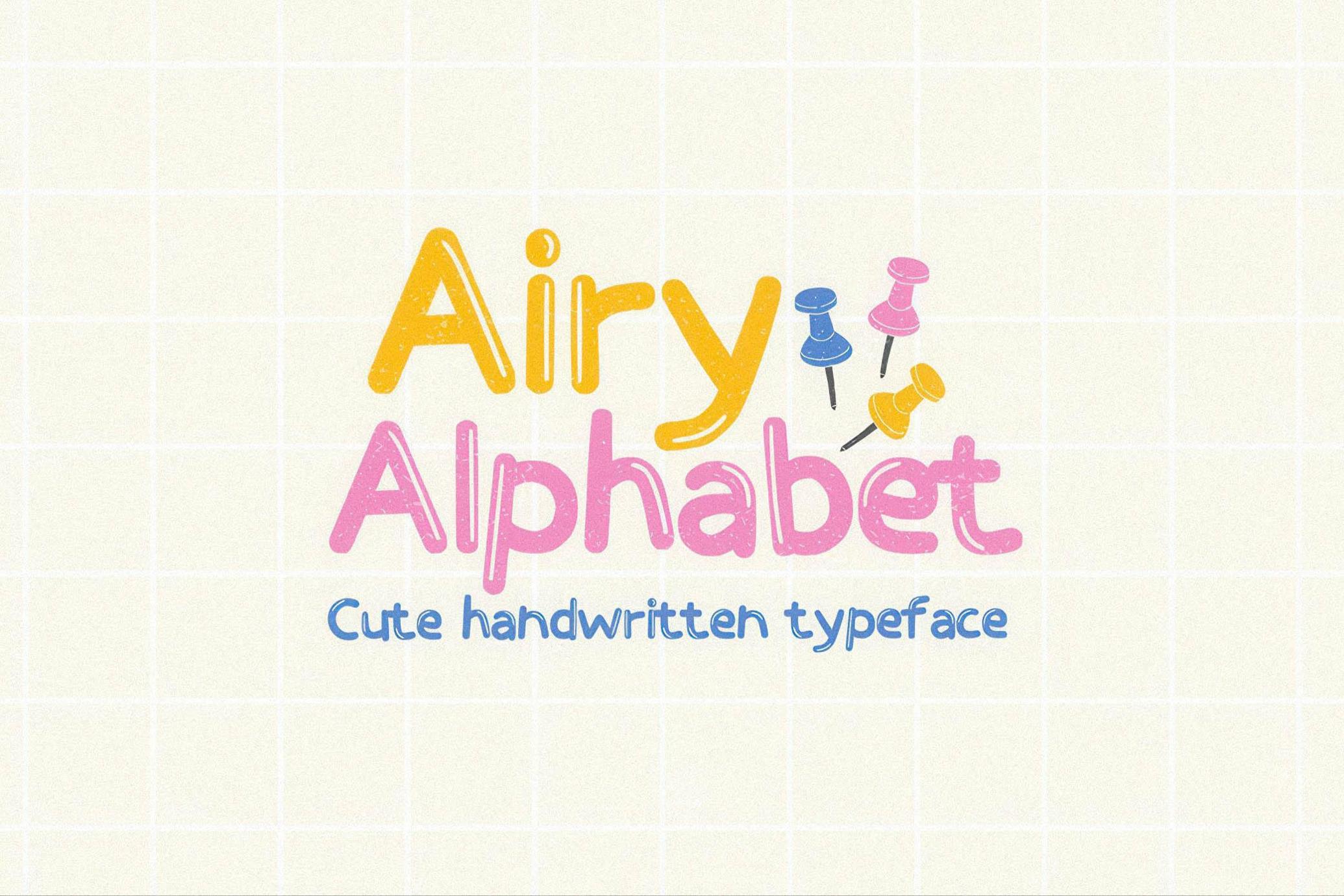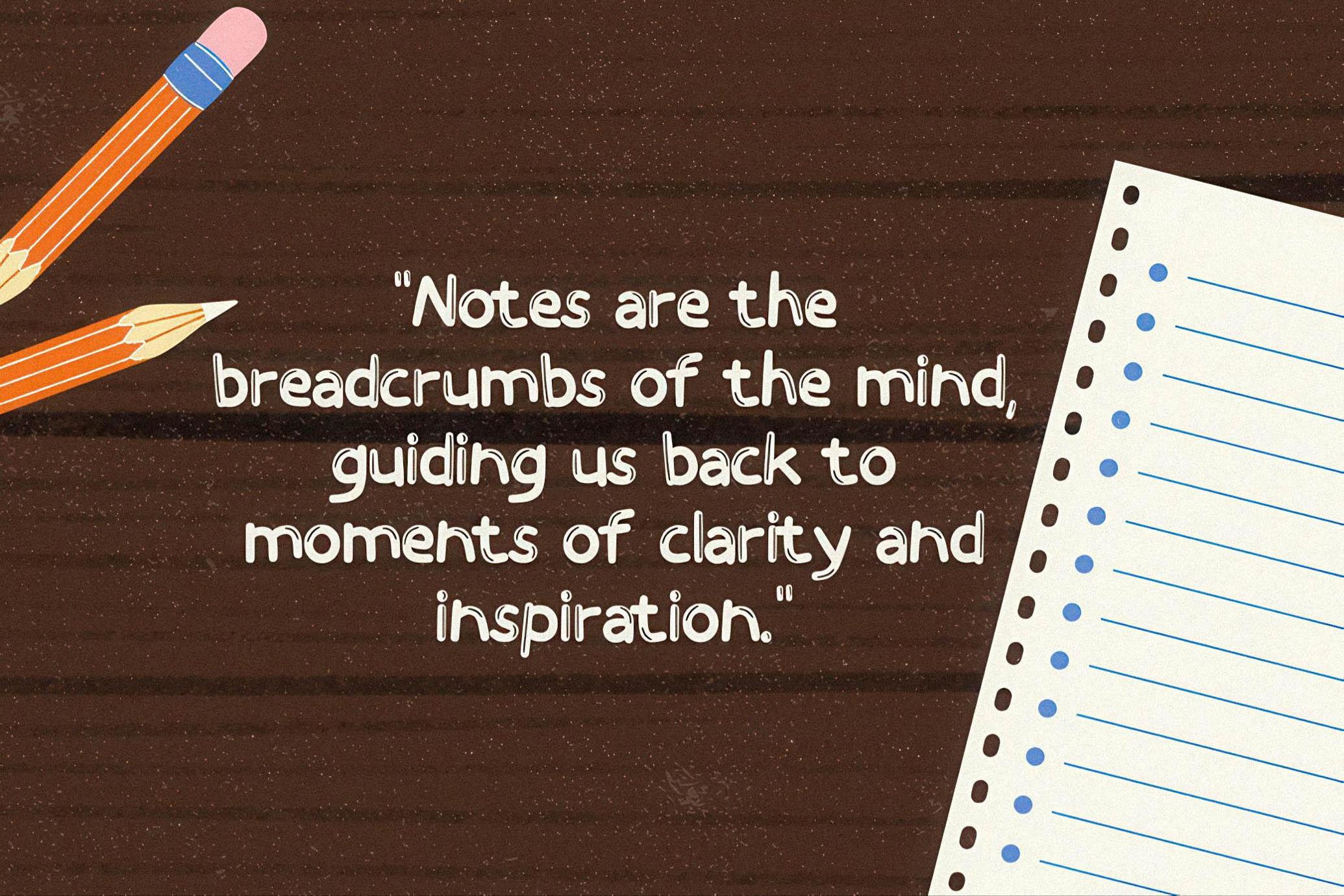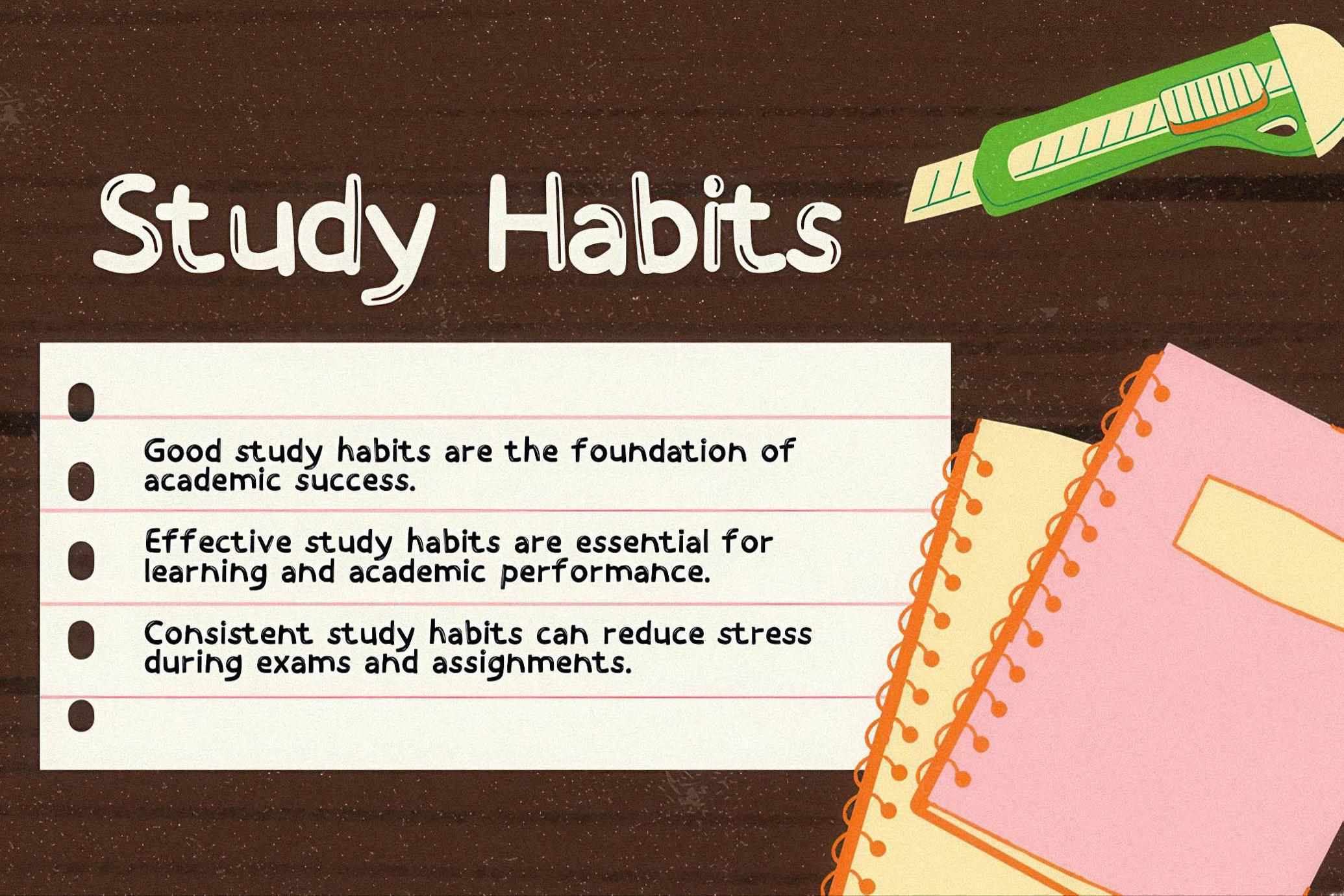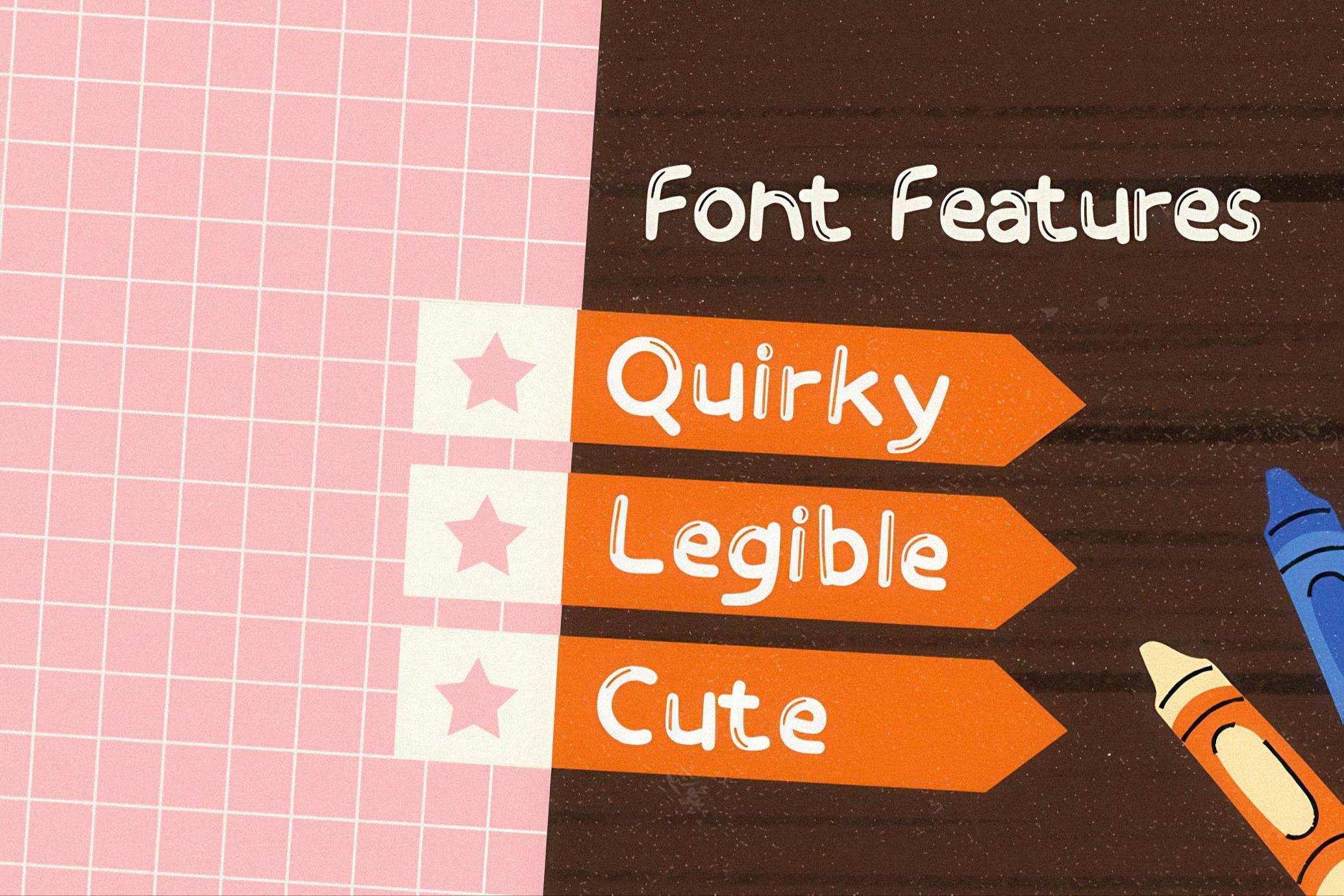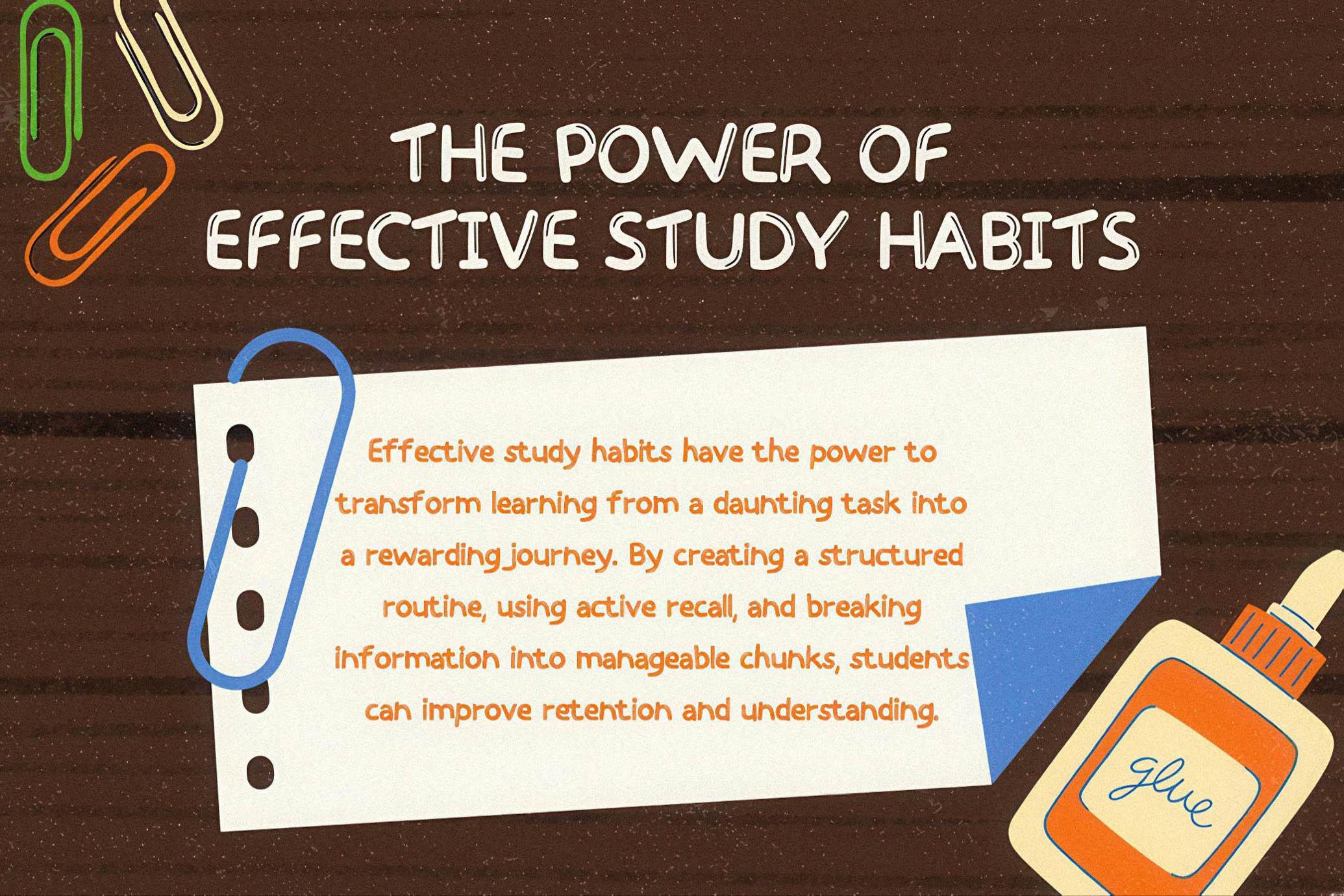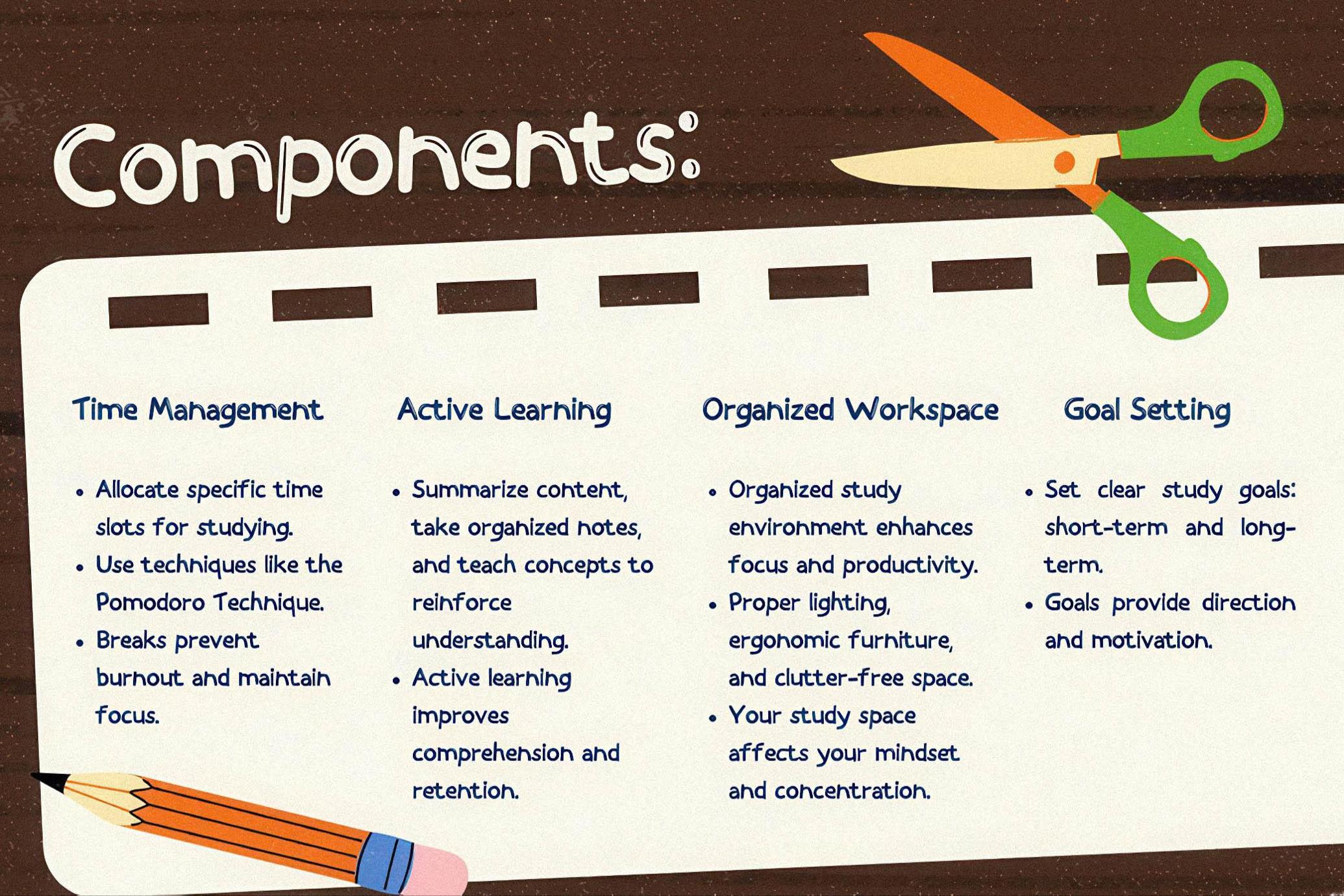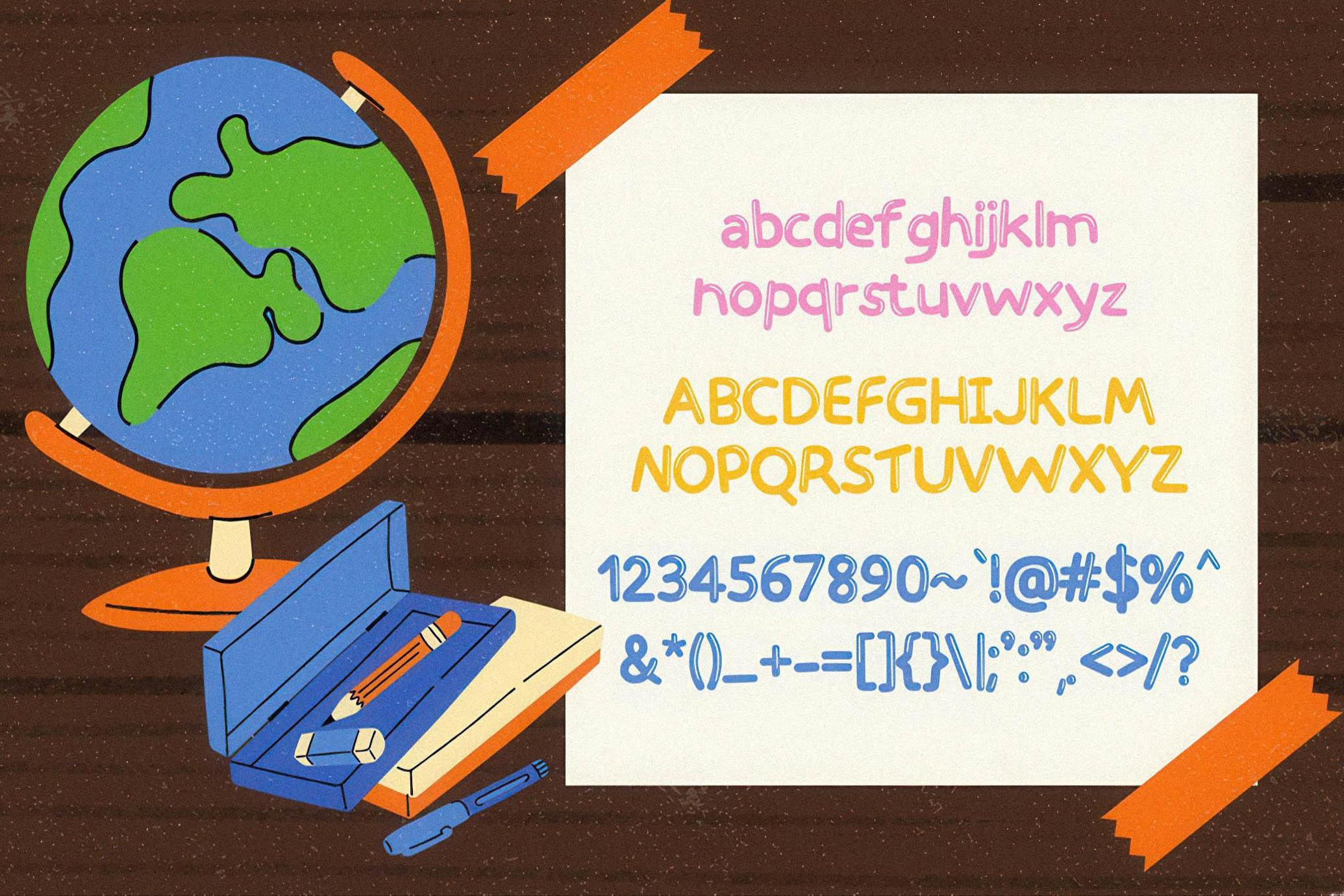
Airy Alphabet - Cute Quirky Font
AiryAlphabet
Float into creativity with Airy Alphabet, a quirky, cute, and delightfully lighthearted handwritten font! Each letter feels like a playful breeze, bringing warmth and charm to your designs.
With its soft curves and effortless flow, this font is perfect for adding a touch of fun and personality to greeting cards, journals, branding, social media, and more. Whether you're crafting cozy quotes or dreamy doodles, Airy Alphabet will make your words feel as weightless as a cloud.